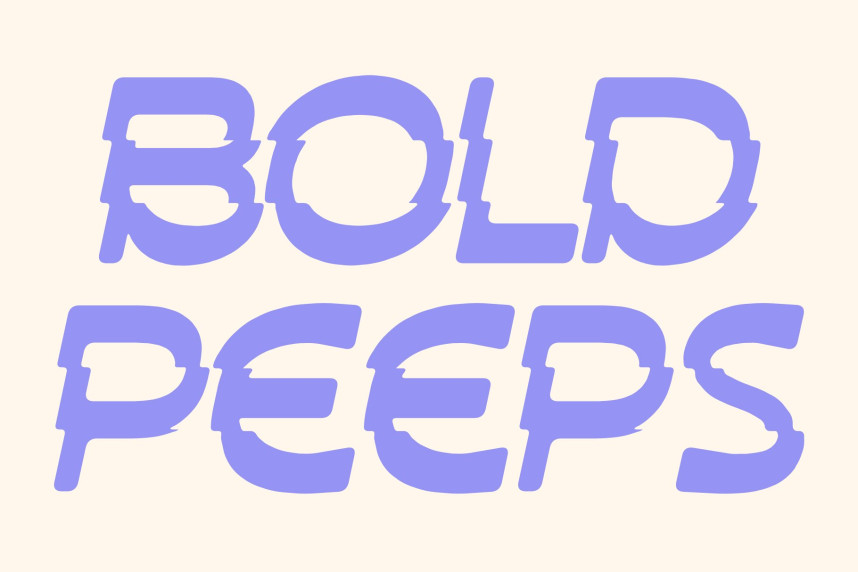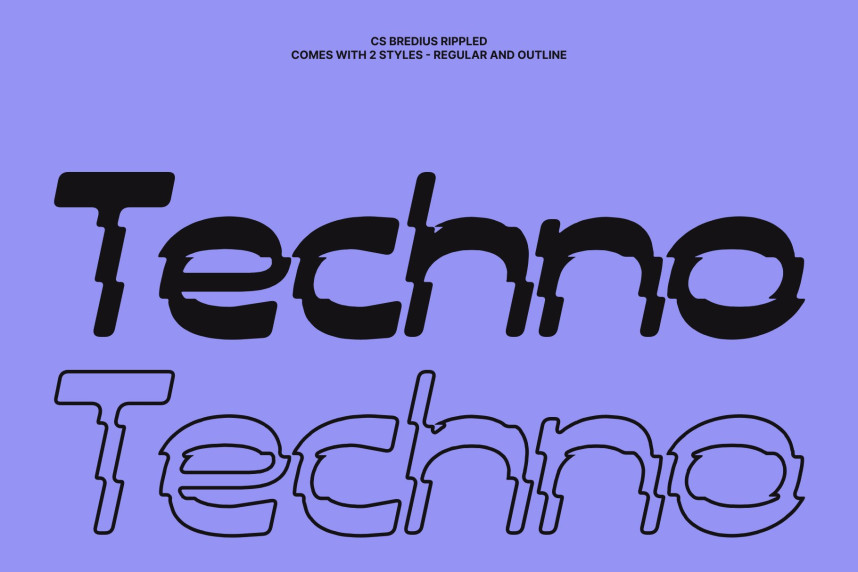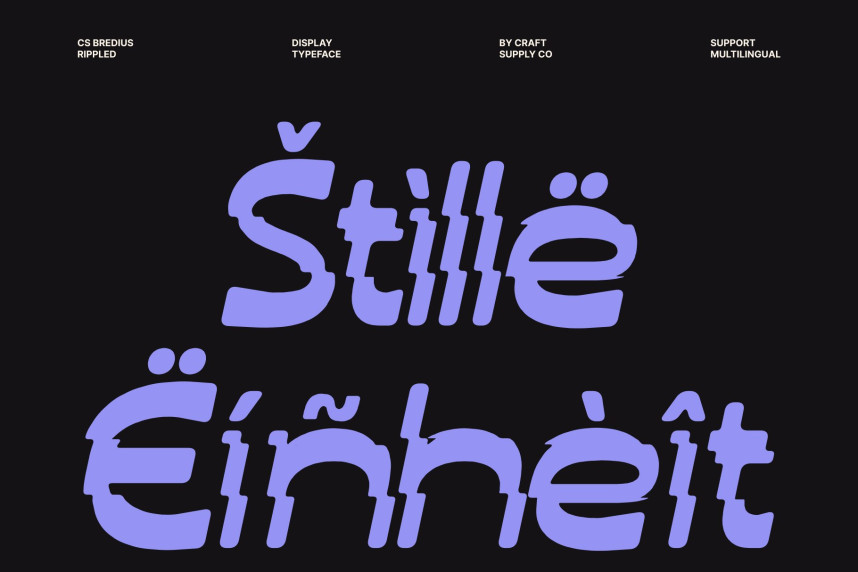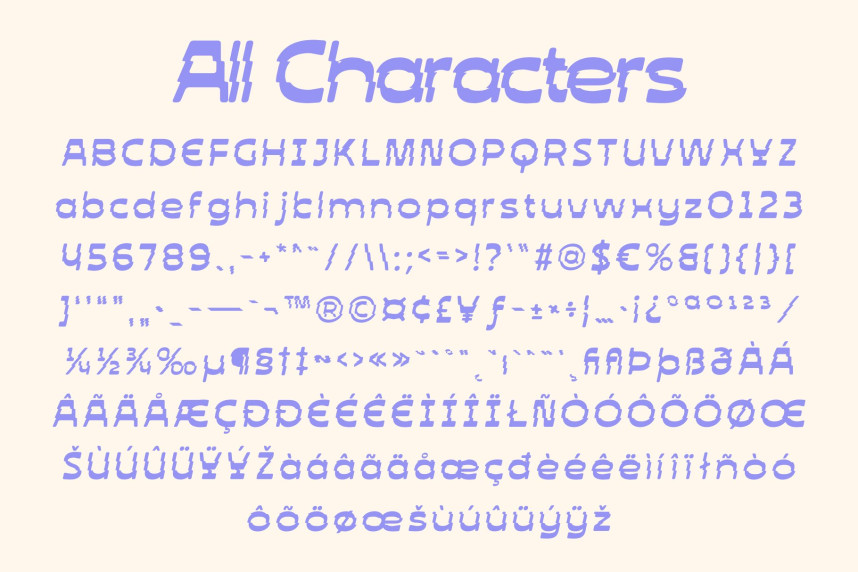
CS Bredius Rippled Font
CS Bredius Rippled Font – Bold Display Font: Where Quirky Creativity Meets Fluid Wave Motion
Quirky Personality with Creative Charm
This is a bold display font bursting with quirky personality and creative charm. Its expressive letterforms and playful construction bring a strong visual presence to every composition, radiating confidence, originality, and artistic energy. Designed to stand out, it transforms ordinary text into an engaging visual statement filled with character and imagination.